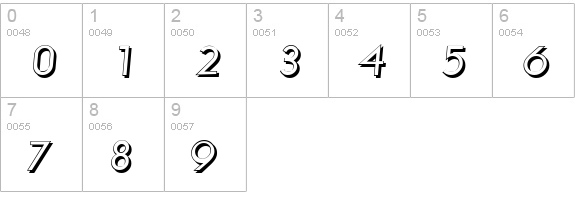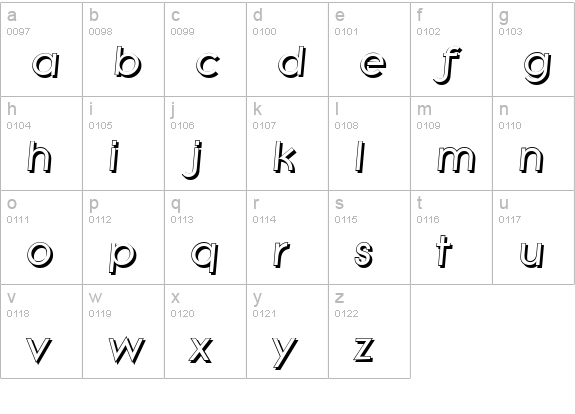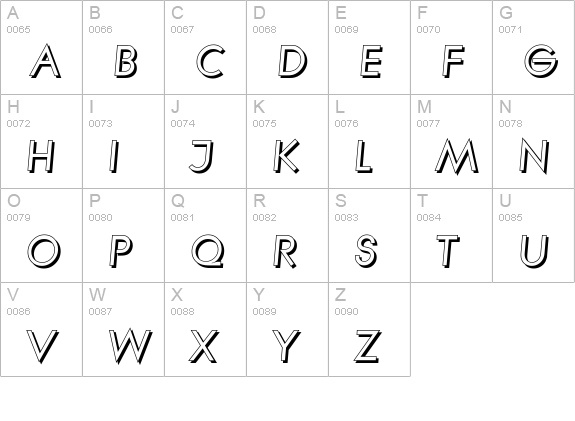
LiteraShadow-BoldItalic Font Details
Introducing LiteraShadow-BoldItalic, a striking and sophisticated font that effortlessly blends boldness and elegance. This unique typeface exudes a sense of modernity and professionalism, making it ideal for a wide range of design projects. The bold italic styling adds a touch of flair and personality, making your text stand out with a touch of drama. What sets LiteraShadow-BoldItalic apart is its meticulous attention to detail and sleek, contemporary aesthetic. The sharp lines and distinct shadows create a captivating visual impact, perfect for making a statement in headers, logos, signage, and more. Best of all, LiteraShadow-BoldItalic is available for free download at FontsMarket.com. Whether you're a graphic designer, web developer, or creative enthusiast, this font is sure to elevate your designs and leave a lasting impression. Don't miss out on the opportunity to add this stunning typeface to your collection today!